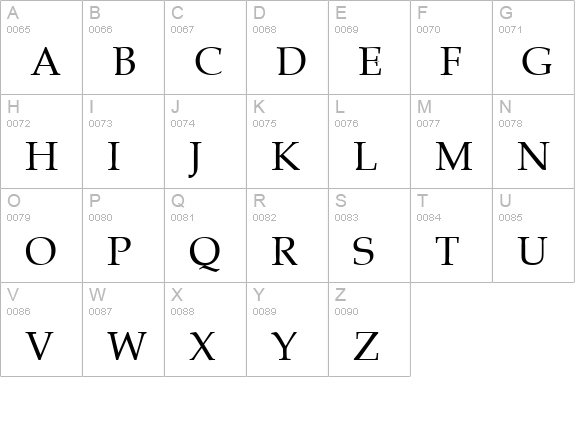
Gemerald Font Details
Gemerald font is a stunning display typeface that exudes elegance and sophistication. With its unique combination of sharp lines and smooth curves, this font is sure to make your designs stand out. The versatile nature of Gemerald allows it to be used for a wide range of projects, from branding to editorial design. What makes Gemerald even more appealing is that it is completely free to download. Yes, you read that right - you can get your hands on this beautiful font at no cost! Simply head over to FontsMarket.com and start incorporating Gemerald into your projects today. Don't miss out on this amazing opportunity to enhance your designs with the exquisite Gemerald font.